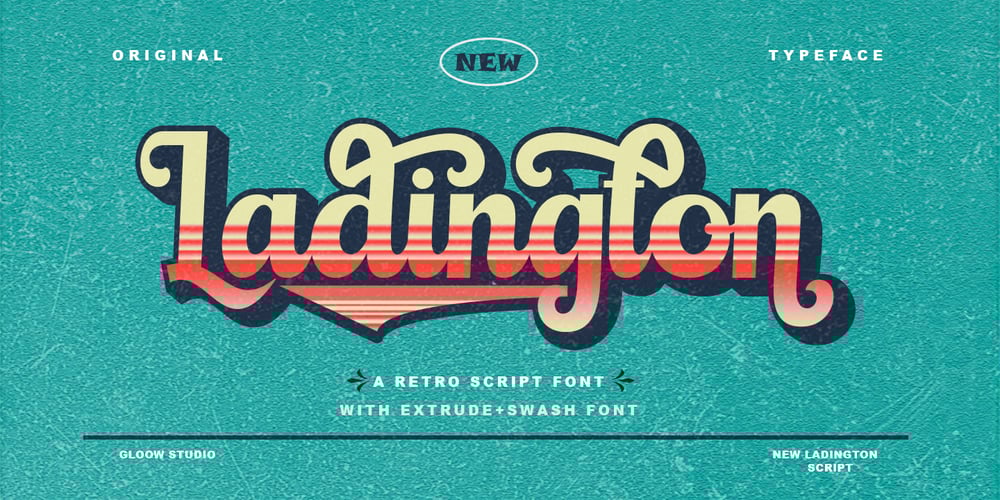
Ladington Font Family was designed by Muhammad Iqram and published by Gloow Studio. Ladington contains 3 styles and family package options. Ladington is a retro and modern typeface inspired by 60s – 80s designs with more unique exploratory styles such as swoshes and alternative characters. This font is made from a manual sketch with lots of strokes then finished into a font. Create your design project with this font and extra illustrations to make it more beautiful. This font is also suitable for designs such as logos, stickers, t-shirt designs, banners, posters, signs, display designs, packaging and other amazing designs!Enyoy with our products and feel free to contact us for support!Feature :Complete Set of Uppercase & Lowercase CharactersNumbers & PunctuationMultilingual LanguagePUA encodedOpen Type FeatureTo use the alternative features of OpenType Stylistic (including swosh), you must use a program that supports OpenType such as Adobe Illustrator CS, Adobe Indesign, Corel Draw X6-X7 and Microsoft Office 2010 or later versions. An additional way to access alternatives/swoshes is using Character Map (Windows), Nexus Font (Windows), Font Book (Mac), or any of the more programs that have Character Pop.Thank you for buying our products and supporting us! We hope that this font will become part of your design project. If you have any other questions, inquiries or concerns, don’t hesitate and have fun contacting us directly. We’d love to be able to help you even more!If you are satisfied with our product, please put your star in our design review, it is very great moment for us. Thank You! 🙂